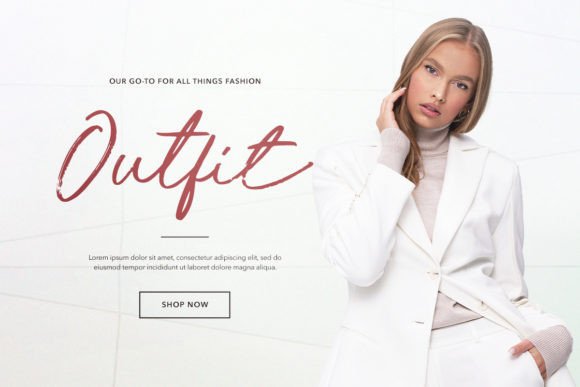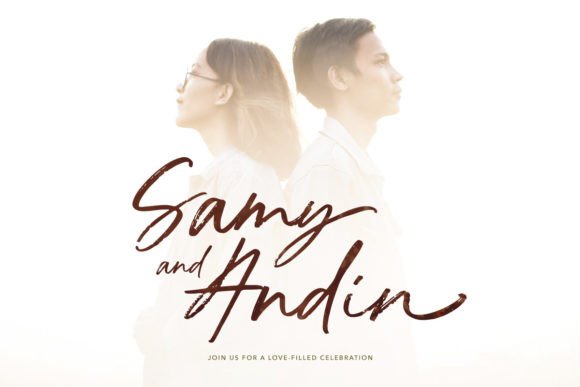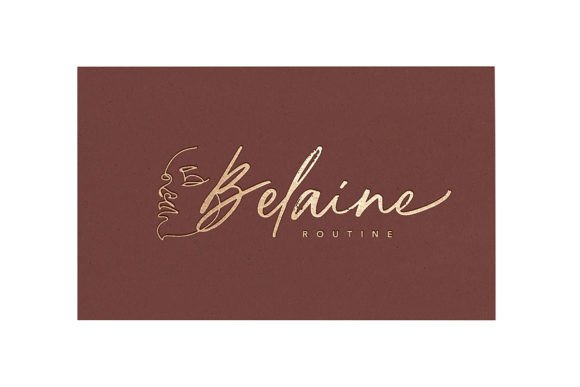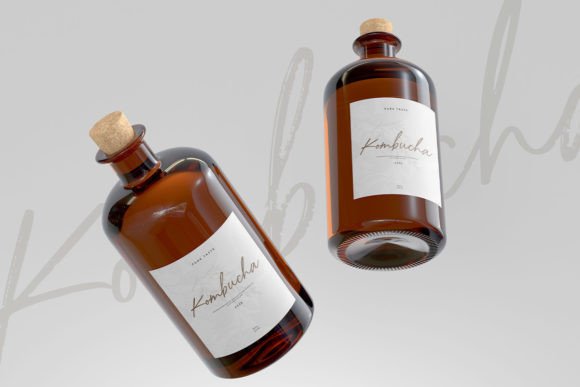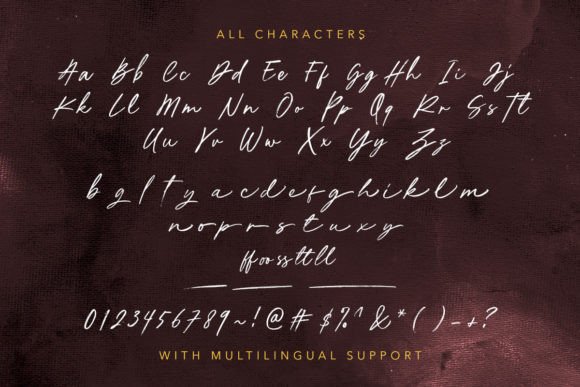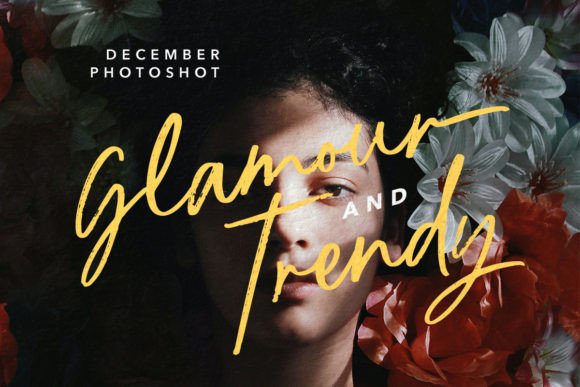
Introducing Ardelion Font: The Ultimate Signature Script for Designers and Crafters
Are you a designer or crafter looking for a unique and stylish font to elevate your creative projects? Look no further than Ardelion Font, a signature script with a textured brush that is sure to make your designs stand out. In this article, we’ll dive into the features and benefits of Ardelion Font, and explore how you can use it to create stunning logos, branding, fashion designs, wedding invitations, and handwritten quotes.
What is Ardelion Font?
Ardelion Font is a carefully crafted signature script that boasts a textured brush effect, giving it a distinctive and authentic look. This font is perfect for designers and crafters who want to add a personal touch to their projects. With its stylistic alternates, underline options, and ligatures, Ardelion Font offers a high level of versatility and flexibility, making it suitable for a wide range of applications.
Key Features of Ardelion Font
- Stylistic Alternates: Ardelion Font comes with a range of stylistic alternates, allowing you to mix and match different letterforms to create a unique look that suits your brand or design style.
- Underline Options: Add an extra touch of elegance to your designs with Ardelion Font’s underline options, perfect for creating sophisticated logos and titles.
- Ligatures: Ardelion Font includes ligatures, which enable you to connect letters in a way that creates a seamless, handwritten look.
- Textured Brush Effect: The font’s textured brush effect gives it a organic, hand-painted feel that’s perfect for creating unique and eye-catching designs.
Using Ardelion Font for Logo Design and Branding
Ardelion Font is an excellent choice for logo design and branding projects. Its unique textured brush effect and stylistic alternates make it easy to create a custom logo that reflects your brand’s personality and style. Whether you’re designing a logo for a new business or rebranding an existing one, Ardelion Font is a great option to consider.
With Ardelion Font, you can create a logo that is both stylish and memorable. The font’s versatility allows you to experiment with different colors, textures, and design elements to create a logo that perfectly represents your brand.
Ardelion Font for Fashion Design
Fashion designers can also benefit from using Ardelion Font in their designs. The font’s stylish and elegant look makes it perfect for creating beautiful fashion designs, such as clothing labels, fashion magazines, and advertising campaigns.
Ardelion Font’s textured brush effect and stylistic alternates allow you to add a touch of sophistication and glamour to your fashion designs, making them stand out in a crowded market.
Wedding Invitations and Handwritten Quotes
Ardelion Font is also an excellent choice for creating wedding invitations and handwritten quotes. The font’s elegant and cursive look makes it perfect for formal and informal wedding invitations, while its textured brush effect adds a romantic and personal touch.
For handwritten quotes, Ardelion Font offers a range of possibilities. You can use the font to create beautiful, hand-written quotes for social media, blogs, or marketing materials, adding a personal and emotive touch to your content.
In conclusion, Ardelion Font is a versatile and stylish signature script that offers a range of creative possibilities for designers and crafters. With its textured brush effect, stylistic alternates, underline options, and ligatures, Ardelion Font is perfect for creating unique logos, branding, fashion designs, wedding invitations, and handwritten quotes.